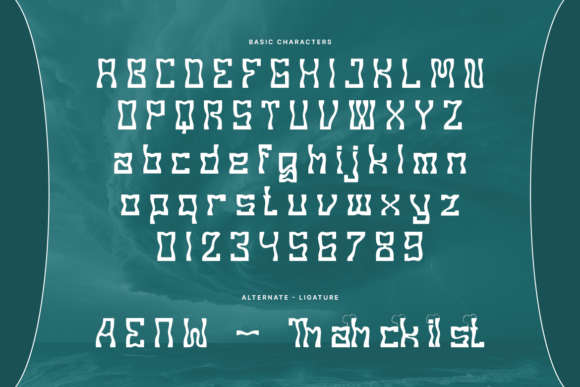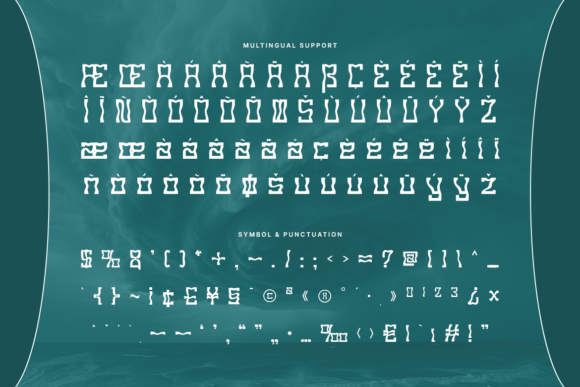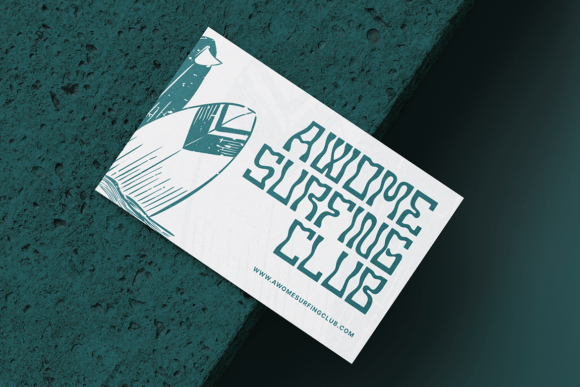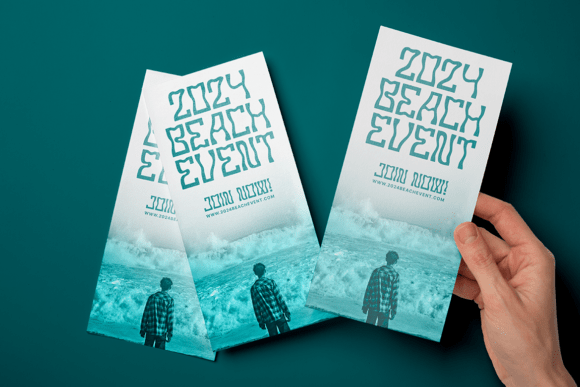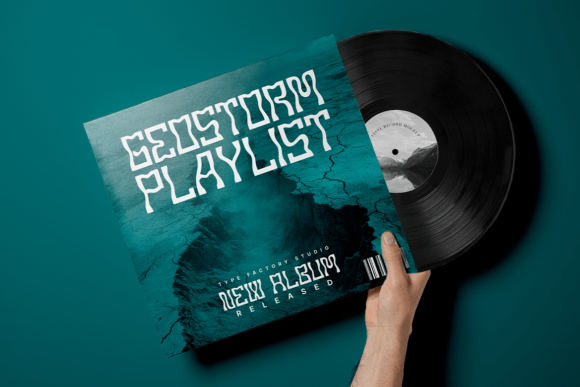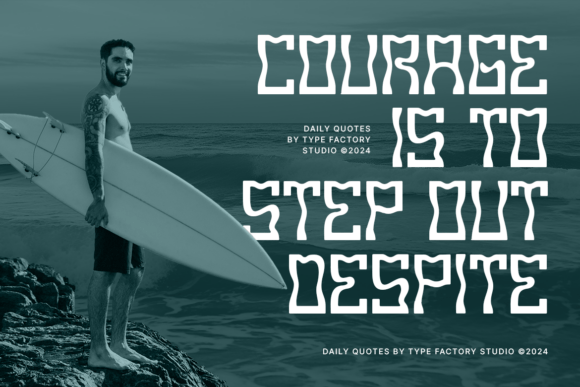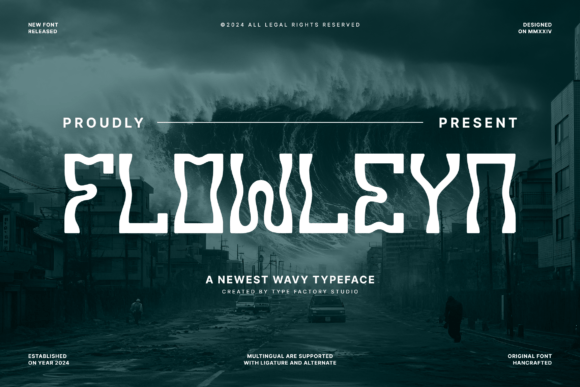
Introducing Flowleyn Font: A Dynamic Display Typeface
Are you looking for a font that can add a touch of fluid motion and organic elegance to your designs? Look no further than Flowleyn, a wavy display typeface that is sure to make a statement. Inspired by distorted letterforms and soft curves, Flowleyn is the perfect choice for designers and crafters who want to add a contemporary experimental feel to their work.
Flowleyn’s design is characterized by its bold structure and consistent stroke weight, making it ideal for use in large-format typography. Each character features soft curves and organic vertical movement, creating a dynamic rhythm that is sure to capture the attention of your audience. The distinctive wave-shaped forms of Flowleyn give it a unique and experimental feel, while maintaining readability in short text compositions.
Use Cases
Flowleyn is a versatile typeface that can be used in a variety of design applications. Its flowing silhouette and sculpted letterforms make it perfect for:
- Album covers and music branding
- Branding visuals and logos
- Merchandise and apparel
- Editorial layouts and magazine spreads
- Statement headlines and titles
Typography Features
Flowleyn is more than just a beautiful font – it’s also highly functional. This typeface includes:
- Uppercase and lowercase letters
- Numerals and punctuation
- Multilingual support
- Selected alternates and ligatures
These features allow for enhanced typographic flexibility, making it easy to create unique and visually appealing text compositions.
Tips for Using Flowleyn
To get the most out of Flowleyn, here are a few tips to keep in mind:
- Use Flowleyn in large sizes where its flowing silhouette and sculpted letterforms can stand out clearly.
- Combine Flowleyn with other fonts to create visually appealing contrast and hierarchy.
- Take advantage of Flowleyn’s alternates and ligatures to add unique touches to your text compositions.
Flowleyn is a dynamic and experimental typeface that is sure to add a touch of elegance and sophistication to your designs. With its bold structure, consistent stroke weight, and flowing silhouette, Flowleyn is the perfect choice for designers and crafters who want to make a statement. Whether you’re working on a poster, album cover, or editorial layout, Flowleyn is a versatile and highly functional font that is sure to impress.